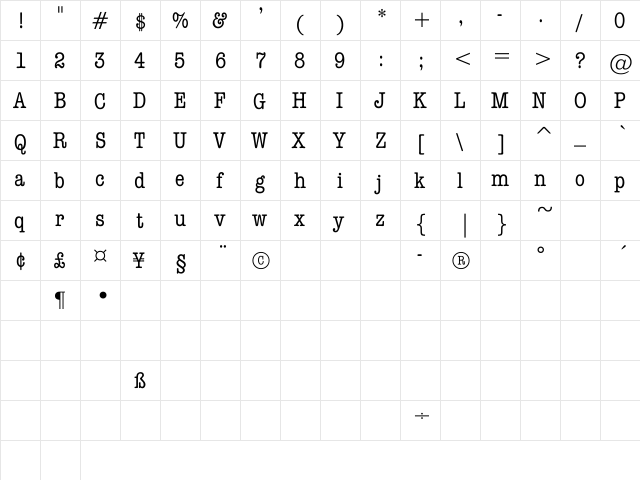
Dateline Condensed Regular
Design Context for Dateline Condensed Typeface
Dateline Condensed is a composed and adaptable typeface that performs quietly and consistently across a wide range of design contexts. The condensed width makes it efficient for tight spaces without sacrificing legibility.